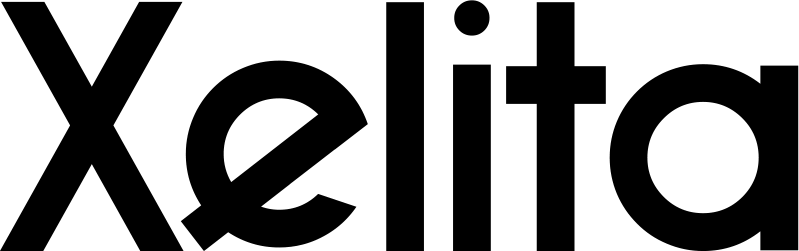
Xelita Font
For creating new fashion logos, brands, movie posters, and flyers you don’t have to come up with a new idea you can easily use a new font. With that said, we offer you Xelita which is a fancy font. This font comes with an impressive collection of characters that includes both the uppercase and lowercase of the alphabet, the numbers, and the punctuation marks.